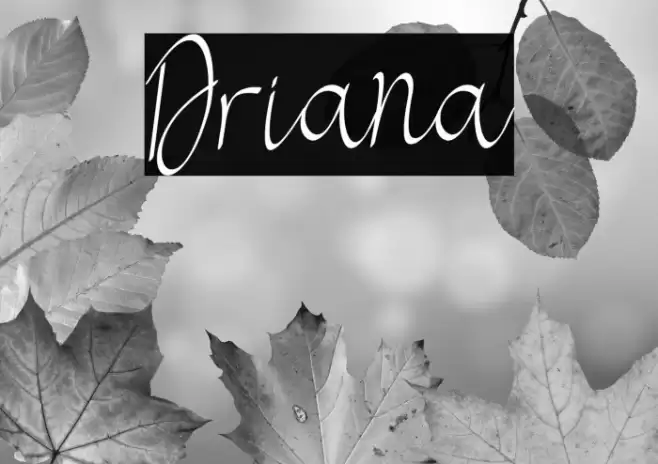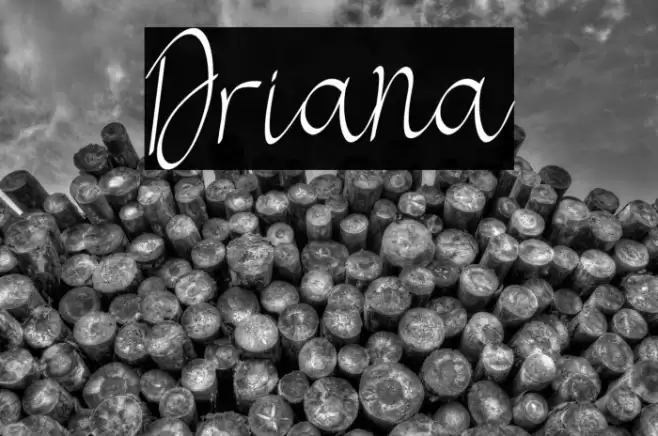
Driana Font
Driana Description
This font exudes a lively and elegant handwritten style, characterized by its fluid and cursive letterforms. The uppercase letters are tall and slightly slanted, giving a sense of movement and grace. The lowercase letters are more compact, maintaining a consistent flow that complements the uppercase. Numbers are clear and legible, with a slight tilt that matches the overall style. Special characters are thoughtfully designed, integrating seamlessly with the rest of the typeface. The strokes are smooth and consistent, with moderate contrast that enhances readability without compromising the handwritten aesthetic.
A lively and elegant handwritten font with fluid cursive letterforms from Regular fonts.
- Proposed Projects: Ideal for wedding invitations, greeting cards, personal branding, and elegant packaging designs.
- Overall Style: Elegant, Handwritten
- Use Case: Invitations, Greeting cards, Personal branding